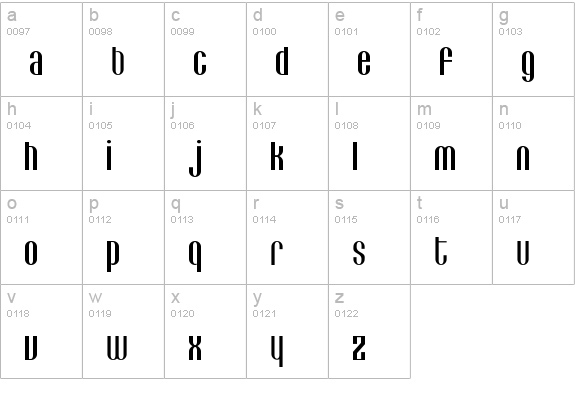
Lithia-Light is a refined, elegant variant in the Lithia typeface family \xE2\x80\x94 well suited to elegant body text, refined sub-headings, and luxury branding.
Lithia-Light is a modern and elegant font that exudes sophistication and style. Its clean lines and sleek design make it perfect for a wide range of projects, from branding to editorial design. This versatile font is ideal for creating professional and eye-catching designs that stand out. What makes Lithia-Light even more appealing is that it is available for free download at FontsMarket.com. Yes, you read that right - this high-quality font can be yours at no cost, allowing you to elevate your creative projects without breaking the bank. Don't miss out on the opportunity to add Lithia-Light to your font collection and take your designs to the next level. Download it now and let your creativity shine!